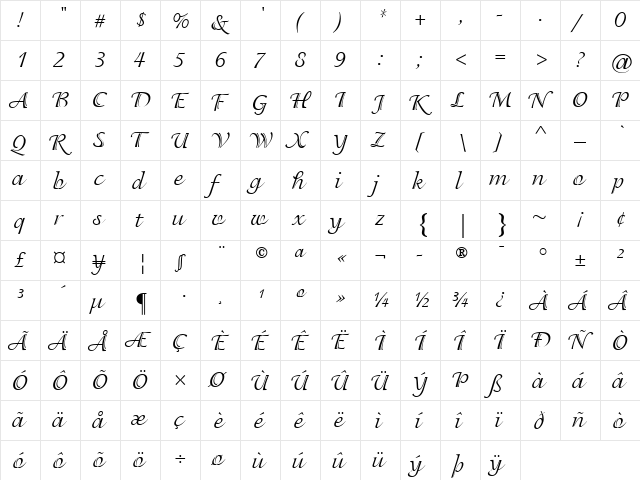
Isadora Cyr Regular
Design Context for Isadora Cyr Typeface
Isadora Cyr is a composed and adaptable typeface that performs quietly and consistently across a wide range of design contexts.